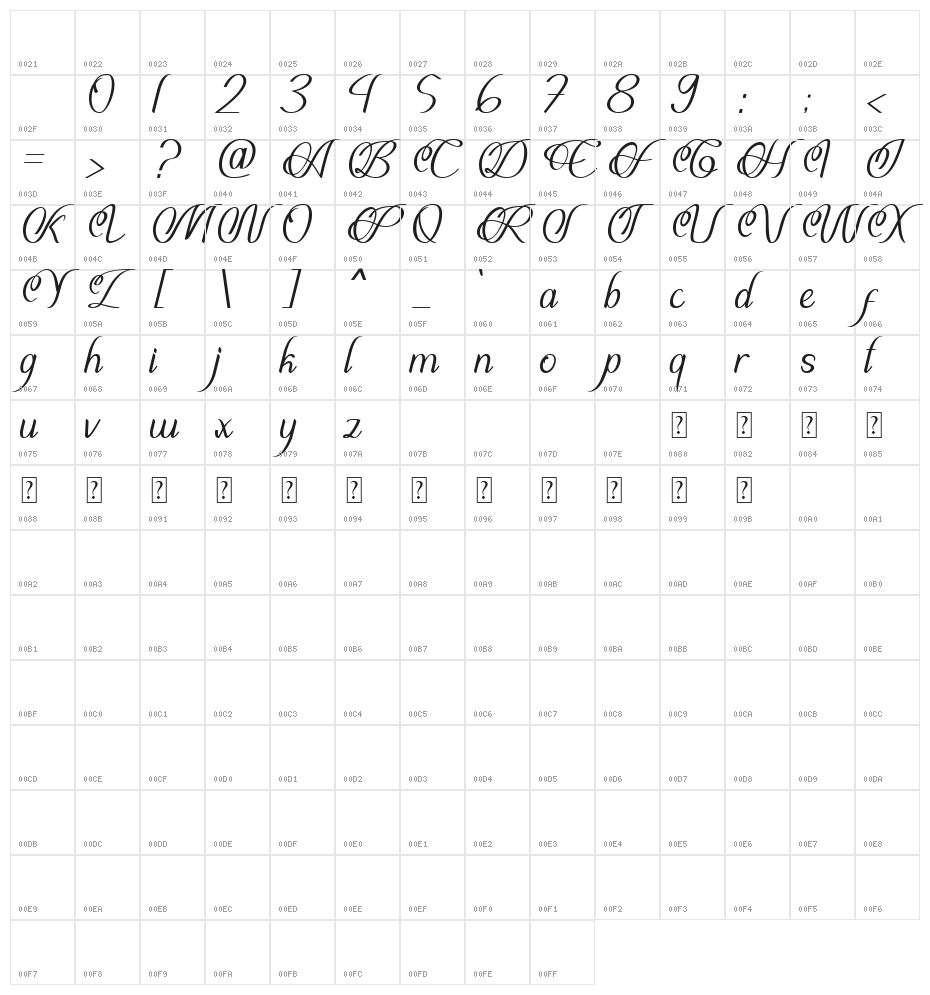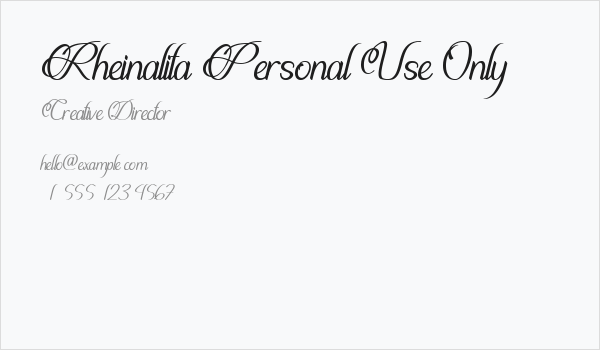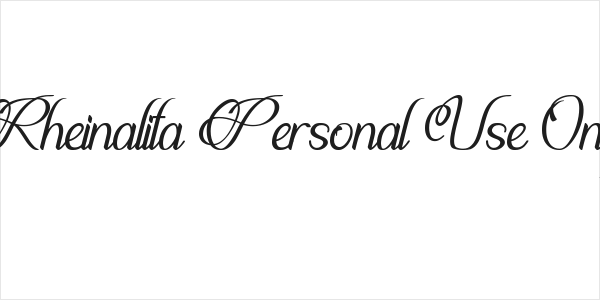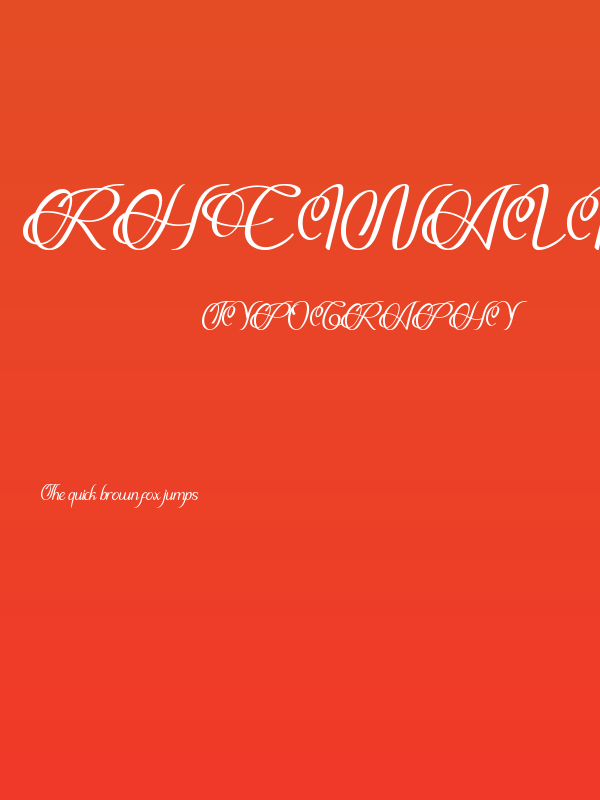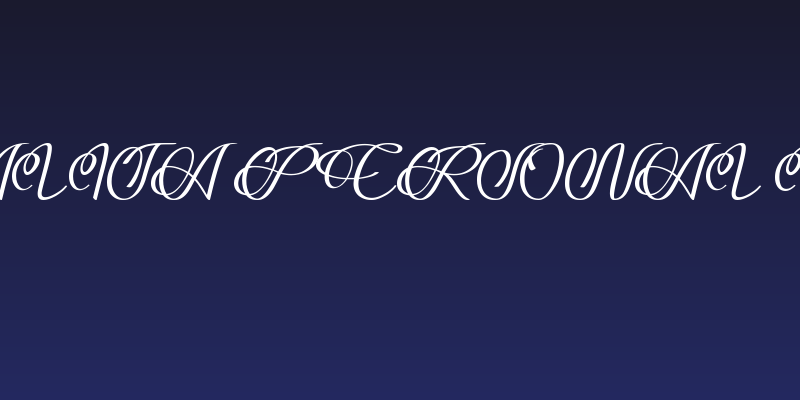
Rheinalita Personal Use Only Font
Rheinalita Personal Use Only Description
This font features an elegant and flowing script style, characterized by its intricate loops and curves. The uppercase letters are particularly ornate, with each character exhibiting a unique flourish that adds a sense of sophistication and grace. The lowercase letters maintain a consistent style, offering a smooth and connected appearance that enhances readability while retaining an artistic flair. The numerals are designed with a similar aesthetic, ensuring a cohesive look across all characters. This font is ideal for projects that require a touch of elegance and refinement.
Overall StyleElegant
Use CaseLogos, Invitations, Decorative text
Proposed ProjectsIdeal for wedding invitations, luxury branding, elegant signage, and artistic posters.